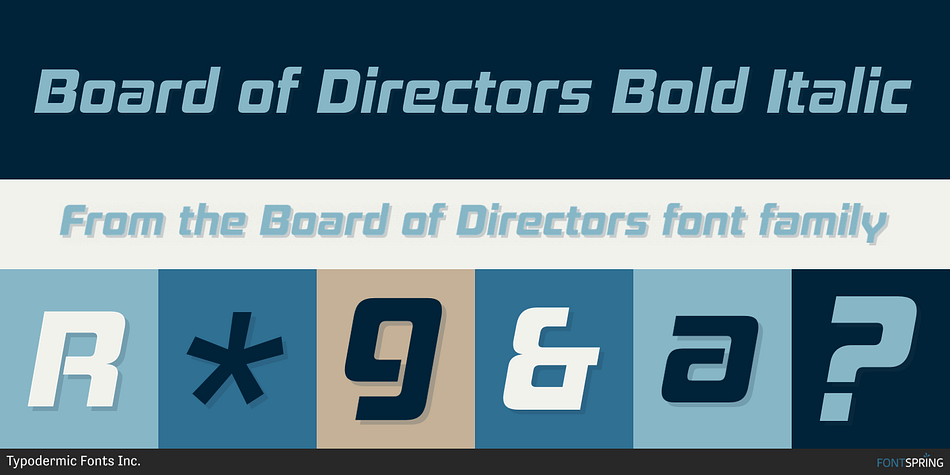
Board of Directors Bold Italic
Board of Directors is a display sans font family. This typeface has sixteen styles and was published by Typodermic Fonts Inc.
We are proud to introduce, Board of Directors. This striking, square display typeface is a true testament to the advancement of modern technology. Inspired by hi-tech logos of the 1970s, the tight curves and large x-height of Board of Directors truly set it apart from the competition.
But it’s not just the aesthetics that make Board of Directors stand out. The stroke gaps were carefully crafted to lighten the perceived character weight, making it the perfect choice for scientific and technical applications. The flat sides of the A and V harken back to the dot matrix printer letterforms of the past, adding a sense of nostalgia and history to this otherwise futuristic typeface. Board of Directors is available in seven weights and italics, giving you the flexibility to choose the perfect weight for your project. From the lightest weight for subtle emphasis to the boldest for maximum impact, Board of Directors has you covered.
We believe that Board of Directors is more than just a typeface. It’s a symbol of innovation, progress, and forward-thinking. With Board of Directors, you can take your message to the next level and make a statement that truly stands out from the crowd.